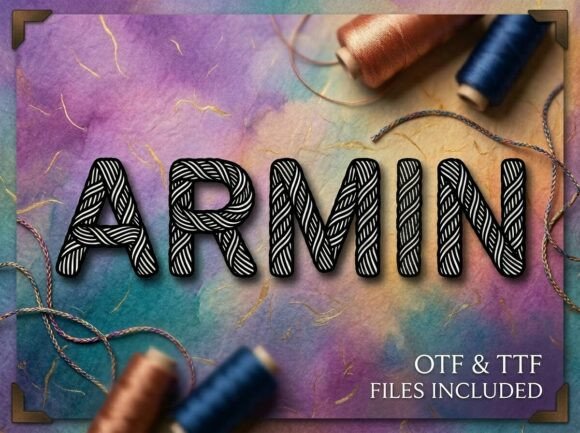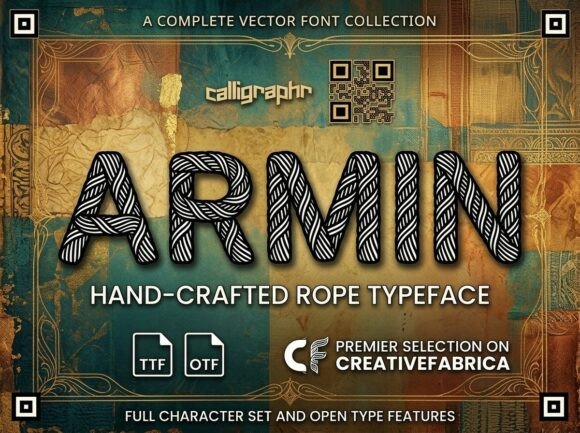
Discover Armin Font: The Handmade Touch for Modern Brands
In a world where digital reigns supreme, the tactile and the handmade are experiencing a renaissance. For brands looking to stand out with a touch of artisanal charm, Armin font emerges as a beacon of craftsmanship and warmth. This tactile display typeface is not just a font; it’s an experience, weaving a story of tradition, texture, and the human touch.
The Essence of Armin: A Blend of Tradition and Modernity
Armin is uniquely characterized by its bold, rounded letterforms that exude a cozy personality. What sets it apart, however, is its intricate internal texture, featuring rhythmic, hand-drawn “twisted rope” or “yarn” patterns. This distinctive feature bridges the gap between traditional textile arts and modern artisanal branding, making it the perfect choice for brands that value heritage and craftsmanship.
Craftsmanship in Every Detail
The design of Armin is deeply rooted in the principles of craftsmanship. Each letterform is meticulously crafted to reflect the warmth and tactility of handmade products. The font’s heavy structural weight gives it a robust presence, making it highly legible and impactful, whether used in logos, signage, or digital media.
Ideal for Brands with a Handmade Soul
Armin finds its perfect match in brands that celebrate the art of making. Independent knitwear identities, boutique tailor logos, handcrafted home decor labels, and social media headers seeking a “woven-and-warm” aesthetic will find Armin to be their premier choice. It’s not just a font; it’s a brand identity that communicates a story of meticulous craftsmanship and attention to detail.
Bringing Texture to the Digital Age
In an era where digital platforms dominate, Armin offers a refreshing tactile experience. Its unique texture injects warmth and personality into digital designs, making them stand out in a crowded online space. For brands looking to convey a sense of authenticity and artisanal quality, Armin provides a compelling visual language.
Versatility and Impact
Armin’s versatility is one of its strongest attributes. It can be used across various mediums, from packaging and advertising to digital platforms and social media. Its bold presence ensures that it commands attention, making it ideal for headlines, titles, and any design element that needs to make a statement.
Embracing the Artisanal Spirit
For designers and brand owners looking to infuse their work with an artisanal spirit, Armin is more than just a typeface; it’s a tool to tell a story of craftsmanship, tradition, and the beauty of the handmade. It invites brands to connect with their audience on a more personal level, offering a glimpse into the care and dedication that goes into every product.
Armin font is a celebration of craftsmanship in the digital age. Its unique blend of traditional textures and modern design makes it a standout choice for brands looking to convey a sense of handmade quality and artisanal care. Whether you’re a designer looking for a distinctive look for your client’s brand or a craftsperson seeking to represent your products with authenticity, Armin offers a compelling solution. Embrace the tactile warmth and handmade soul of Armin, and let your brand tell a story of craftsmanship and tradition.